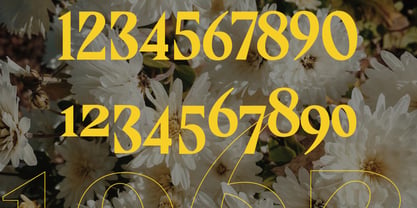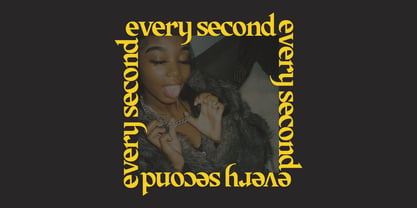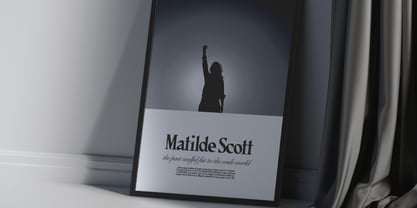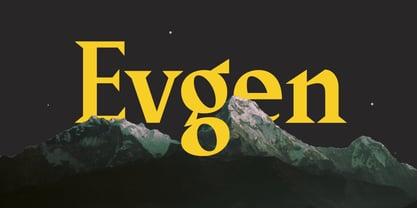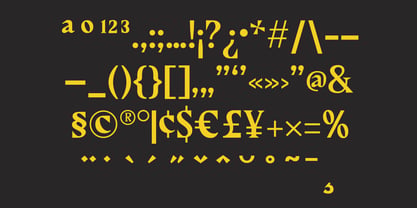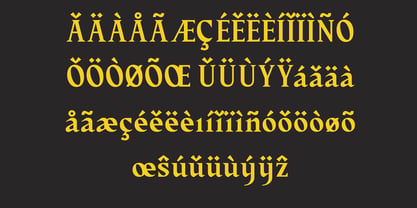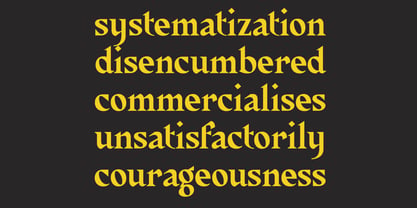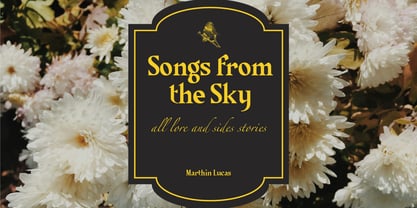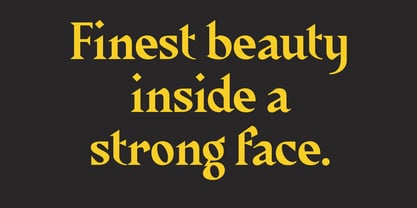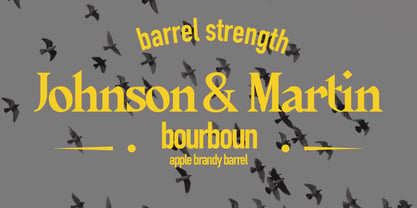
Evgen
The Evgen Font Family was designed by Ilham Prambudiharjo Raharjo and published by PB Type. Evgen contains 1 styles. More about this family
Evgen is a strong and beautiful serif font that exudes elegance and sophistication. Its well-balanced letterforms and refined details make it an excellent choice for a variety of design projects. Whether you're working on branding, editorial layouts, invitations, or website typography, Even brings a timeless and professional touch. Its versatility allows designers to create visually striking compositions while maintaining readability and style.